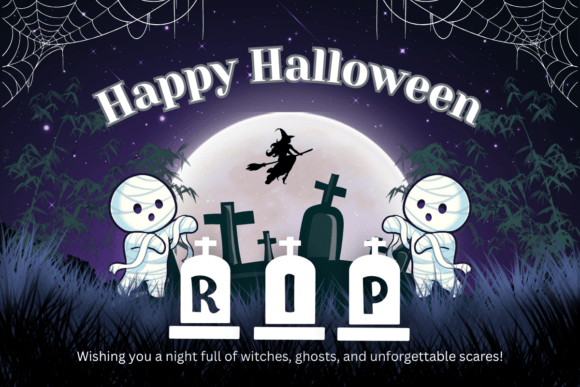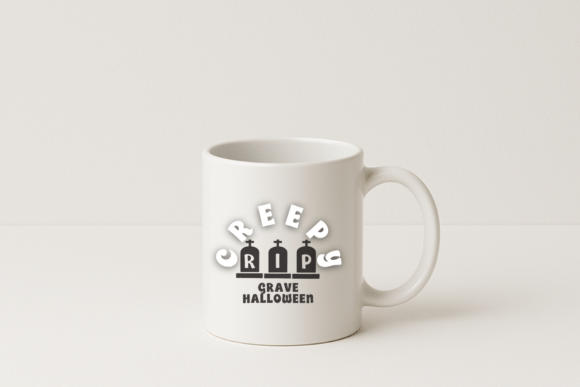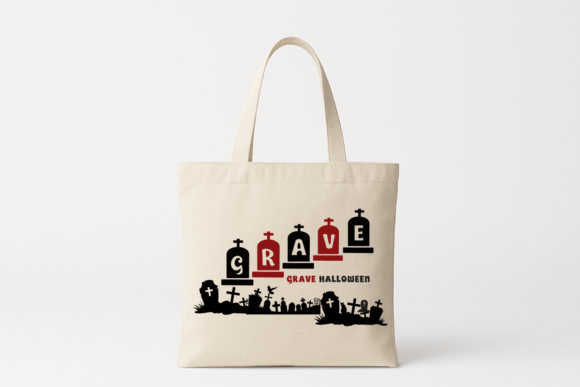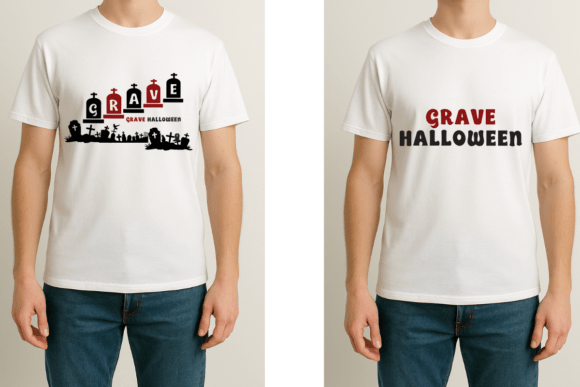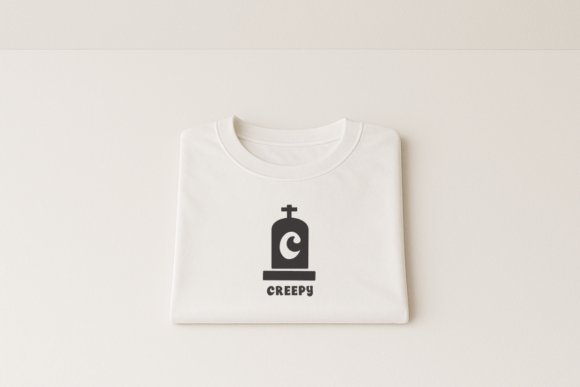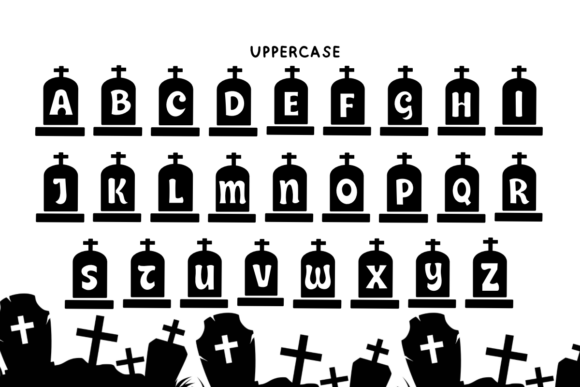
Unleash Your Creativity with Grave Font: The Ultimate Decorative Typeface
Are you tired of using the same old fonts for your designs? Look no further than Grave Font, a remarkably versatile and eye-catching decorative typeface that’s sure to breathe new life into your creative projects. Whether you’re a designer, crafter, or simply someone who loves to add a personal touch to your notes and cards, Grave is the perfect choice for anyone looking to step outside the ordinary.
A Font for All Occasions
Grave Font is not just a one-trick pony; it’s a highly versatile typeface that can be used for a wide range of applications. From note-taking and diary entries to greeting card creations and social media posts, Grave seamlessly blends into any design, adding a touch of elegance and sophistication. Its unique and decorative style makes it perfect for crafts, scrapbooking, and other paper crafting projects.
Enhance Your Designs with Grave Font
One of the best things about Grave Font is its ability to enhance the appeal of any design. Whether you’re creating banners, written content, customizing mugs, adding flair to cards or shirts, or crafting appealing stationery, Grave is the font of choice for all your design needs. Its decorative style adds a touch of whimsy and personality to any project, making it perfect for designers and crafters who want to create something truly special.
Why Choose Grave Font?
So why choose Grave Font over other decorative typefaces? Here are just a few reasons why Grave stands out from the crowd:
- Versatility: Grave Font can be used for a wide range of applications, from digital designs to paper crafting projects.
- Elegance: Grave adds a touch of elegance and sophistication to any design, making it perfect for special occasions and everyday use.
- Unique Style: Grave has a unique and decorative style that’s sure to make your designs stand out from the crowd.
- Ease of Use: Grave Font is easy to use and can be easily integrated into any design, making it perfect for designers and crafters of all skill levels.
Tips for Using Grave Font
Here are a few tips for using Grave Font in your designs:
- Experiment with Different Sizes: Grave Font looks great in a variety of sizes, from large and bold to small and delicate.
- Pair with Other Fonts: Grave Font pairs well with other fonts, so don’t be afraid to experiment with different combinations.
- Use for Headings and Titles: Grave Font is perfect for headings and titles, adding a touch of elegance and sophistication to any design.
- Add a Personal Touch: Use Grave Font to add a personal touch to your designs, making them truly special and unique.
| Font Name | Grave Font |
| Author | Bee piyanuch |
In conclusion, Grave Font is a remarkably versatile and eye-catching decorative typeface that’s perfect for designers, crafters, and anyone looking to add a personal touch to their designs. Its unique style, elegance, and ease of use make it the perfect choice for a wide range of applications, from note-taking and diary entries to greeting card creations and social media posts. So why settle for ordinary fonts when you can step outside the ordinary with Grave Font?
Get Creative with Grave Font
Ready to unleash your creativity with Grave Font? Here are some ideas to get you started:
- Create a beautiful journal or diary with Grave Font as the main typeface.
- Design a stunning greeting card or invitation with Grave Font.
- Add a personal touch to your social media posts with Grave Font.
- Create a unique and eye-catching banner or sign with Grave Font.